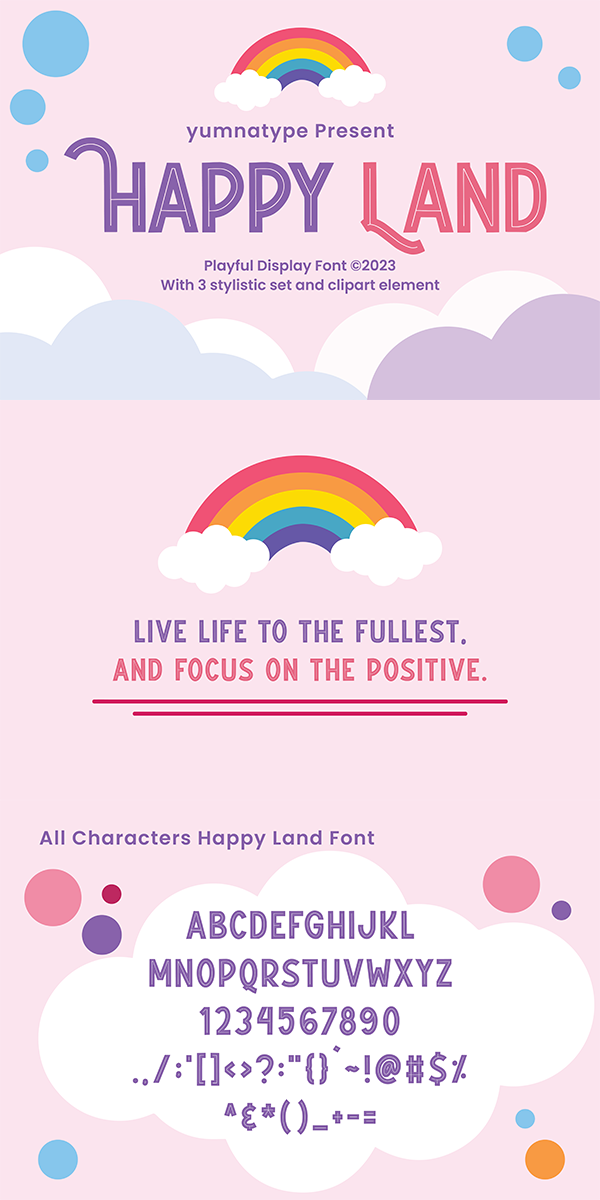
Happy Land Font
About Happy Land
Happy Land, a prominent display font to add firm touches to any of your designs. The letters made all in capital can enhance certain effects on your designs. The font’s simple shapes with strong contrasts affect the legibility. As a result, it is suitable to apply for big text sizes. In addition, this font provides a clipart bonus for you. Enjoy the available features available here.)
Happy Land fits best for various design projects, such as brandings, posters, banners, headings, magazine covers, quotes, printed products, merchandise, social media, etc. Find out more ways to use this font by taking a look at the font preview.